Asterisk
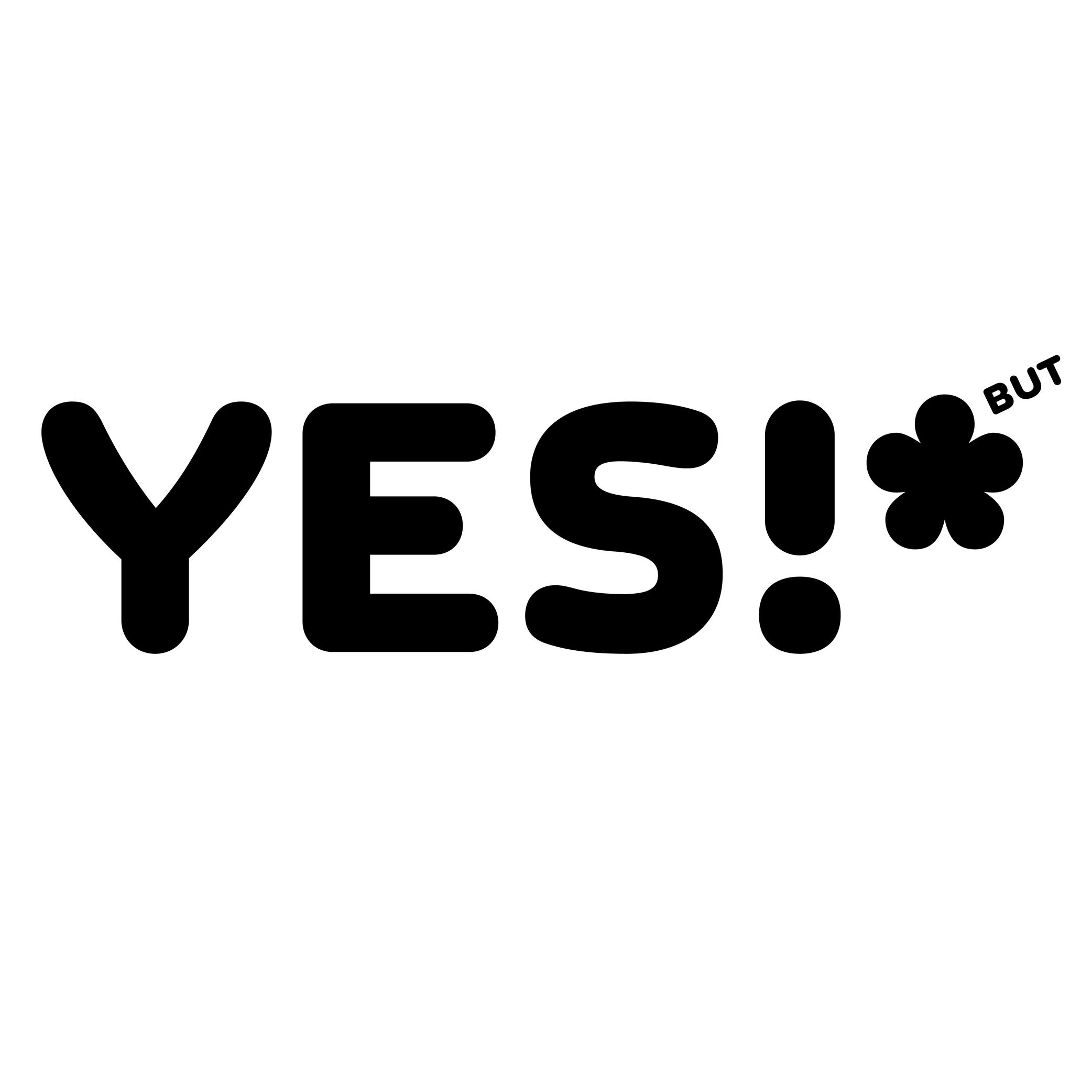
Illustration: Words of Type. Typeface in use: Knowledge Rounded, designed by Lisa Huang, 2024.
FUNCTION
The asterisk (*) is commonly used as a punctuation symbol placed after a word to indicate that it refers to a note.
HISTORY
Star-shaped symbols are seen in documents from many regions of the world throughout history. It was only in the Middle Ages in Europe that the asterisk began to be used as a mark to link a part of a text to additional comments added elsewhere.
DESIGN
The asterisk can have many different designs in order to match the style of a typeface, from a very abstract five-branched star to more flourished ones, with more or less contrast between the center and the tips. The asterisk is aligned at the top of the glyphs to be legible in a text.
UNICODE